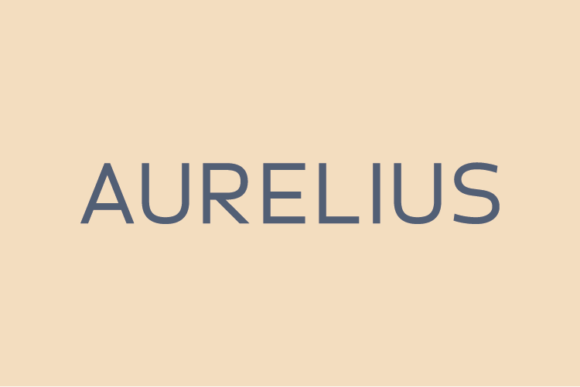
Journey into the realm of elegance with Aurelius, a sans serif typeface that exudes sophistication and grace. Step into a world where your designs transcend the ordinary and embark on a voyage of visual excellence.
With its clean lines and timeless allure, Aurelius captivates audiences, leaving a lingering impression of refinement and beauty. Crafted by the visionary A Christie, this font is a masterpiece of digital artistry, meticulously designed to elevate your creative endeavors to new heights.
Whether you're a seasoned designer or just starting your artistic journey, Aurelius is your perfect companion. Its versatility knows no bounds, seamlessly adapting to a myriad of projects, from elegant logos that command attention to heartfelt wedding invitations that evoke enduring memories.
Dive into a world of creativity, where your words dance across the screen with an air of sophistication. Let Aurelius transform your quotes into captivating works of art, adding a touch of brilliance to your social media posts or website designs.
Printed materials come alive with Aurelius, its crisp and legible characters ensuring your message shines through with clarity and impact. Magazines, brochures, and posters are elevated to new levels of visual appeal, leaving readers captivated by your words and the beauty of the font that adorns them.
Aurelius is not just a font; it's an experience. An experience of elegance, versatility, and timeless beauty. Embrace the power of Aurelius and unlock the door to a world of design possibilities.